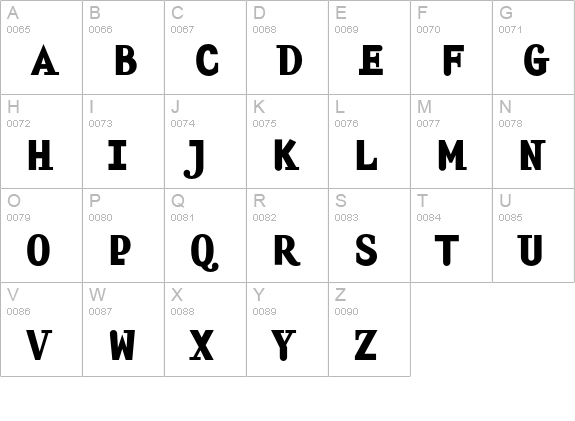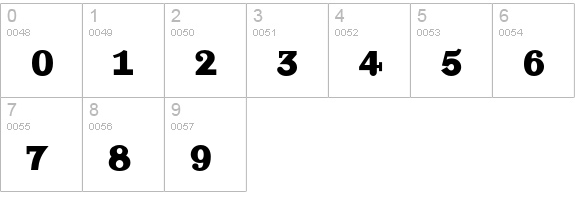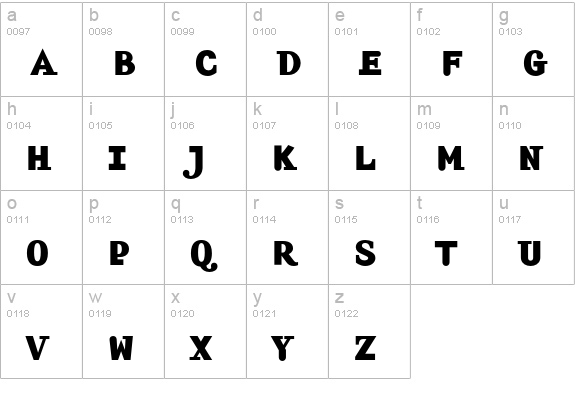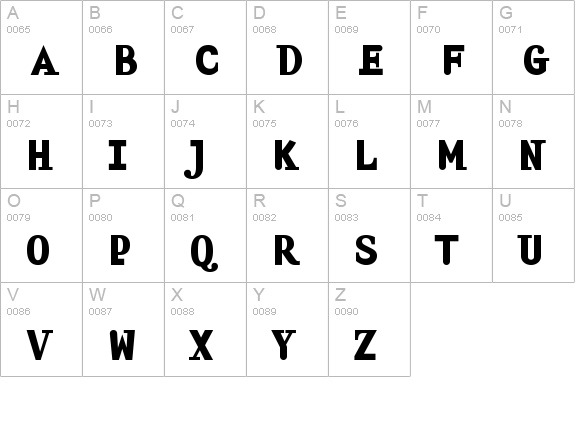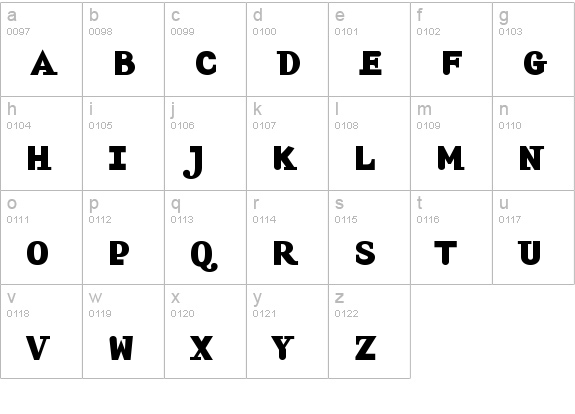
AmplifierBoldSmallCaps Font Details
AmplifierBoldSmallCaps font is a bold and attention-grabbing typeface designed to make your text stand out. With its unique combination of boldness and elegance, AmplifierBoldSmallCaps is perfect for creating eye-catching headlines, titles, and other prominent text elements. This font exudes confidence and sophistication, making it ideal for projects that require a strong visual impact. What sets AmplifierBoldSmallCaps apart is its versatility - it can be used in a variety of design projects, from posters and advertisements to logos and branding materials. The small caps style adds an extra touch of refinement and professionalism to your text, making it a great choice for corporate communications or editorial design. The best part? AmplifierBoldSmallCaps is completely free to download at FontsMarket.com. Whether you're a designer looking for a striking display font or a business owner in need of a powerful typeface for your marketing materials, AmplifierBoldSmallCaps has you covered. Don't miss out on this stylish and impactful font - download it today and take your designs to the next level!